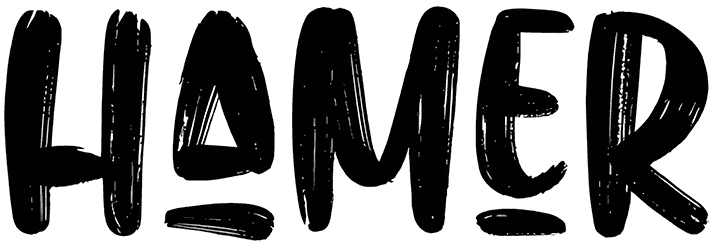
Hamer Font
Your design will be more engaging when you use a minimal and natural letterform for your typography, and this brush font is able to give such a visual to your layout.
Hamer font doesn’t cover lowercase letters, but you have some letters in different forms. It can be an art gallery opening invitation post or any other design that needs a modern mood; this script font will adorn them well.